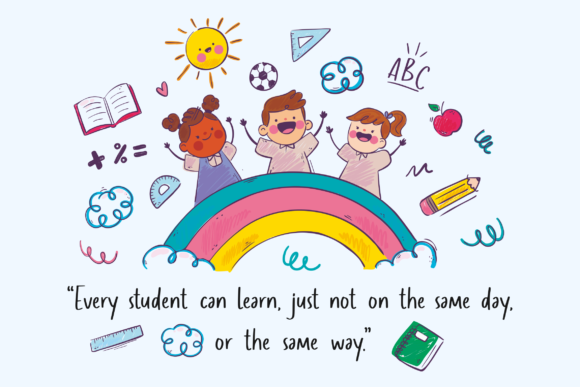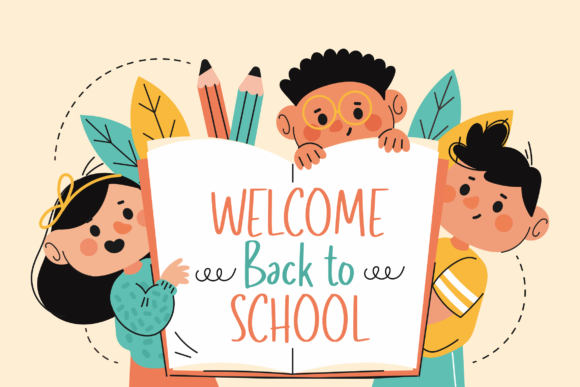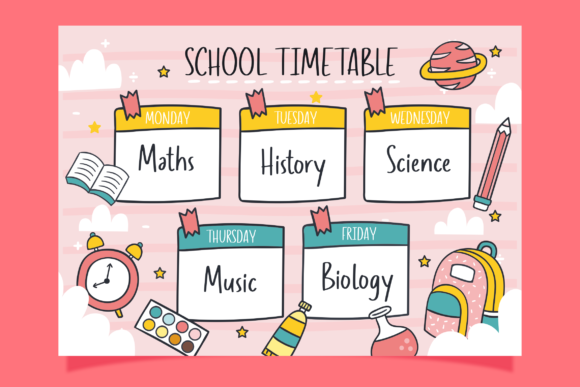
Introduction to Chuello Jambully Font
As a designer, there’s nothing quite like the thrill of bringing a creative project to life. You’ve poured your heart and soul into every detail, from the initial concept to the final touches. But sometimes, no matter how hard you try, your design just needs that extra something to make it truly special. That’s where a high-quality font like Chuello Jambully Font comes in – a clean and adaptable script font that’s sure to elevate your design to the next level.
Whether you’re working on a logo, a brochure, or a social media campaign, Chuello Jambully Font has the potential to be a valuable design resource. Its transparent background and free download make it an attractive option for designers of all levels, and its versatility means it can be used for a wide range of creative projects.
So, what makes Chuello Jambully Font so special? In this article, we’ll take a closer look at this fantastic font and explore its many benefits for designers. From its unique aesthetic to its practical applications, we’ll show you why Chuello Jambully Font is a must-have addition to any design library.
Key Features of Chuello Jambully Font
- High-quality, unique design for creative projects, making it a valuable design resource.
- Features a transparent background, allowing for easy customization and seamless integration into designs.
- Comes in a single weight, making it perfect for projects where a clean and simple font is desired.
- Supports a wide range of languages, making it a versatile design resource for global projects.
- Includes a scalable design, suitable for use in various resolutions, from low-resolution screens to high-resolution prints.
- Designed with a modern aesthetic, making it an excellent choice for contemporary creative projects.
Honest Review: Chuello Jambully Font
I recently stumbled upon the Chuello Jambully Font, and I must say it’s a great addition to any designer’s toolkit. As a design resource, it’s perfect for creating a unique and eye-catching visual identity for a creative project.
Here are some things that work well about the Chuello Jambully Font:
- ✨ High-quality design that stands out from the crowd.
- ✨ Offers a transparent background, making it easy to customize and pair with other design elements.
However, I do have a few limitations to note:
Overall, I’m impressed with the Chuello Jambully Font. Its unique design and transparent background make it an excellent choice for designers looking to add a touch of personality to their creative projects. While it may have some limitations, it’s a solid design resource that’s definitely worth checking out.
To get the most out of the Chuello Jambully Font, experiment with different font sizes, colors, and combinations. You can also use it to create unique titles, headings, and body text.
The Chuello Jambully Font is ideal for a variety of creative projects, including:
- Print materials
- Digital marketing materials
Yes, the Chuello Jambully Font is a high-quality design resource, making it suitable for print projects, including business cards, brochures, and posters. The font’s high resolution and detailed design ensure crisp, clear text even at larger font sizes.